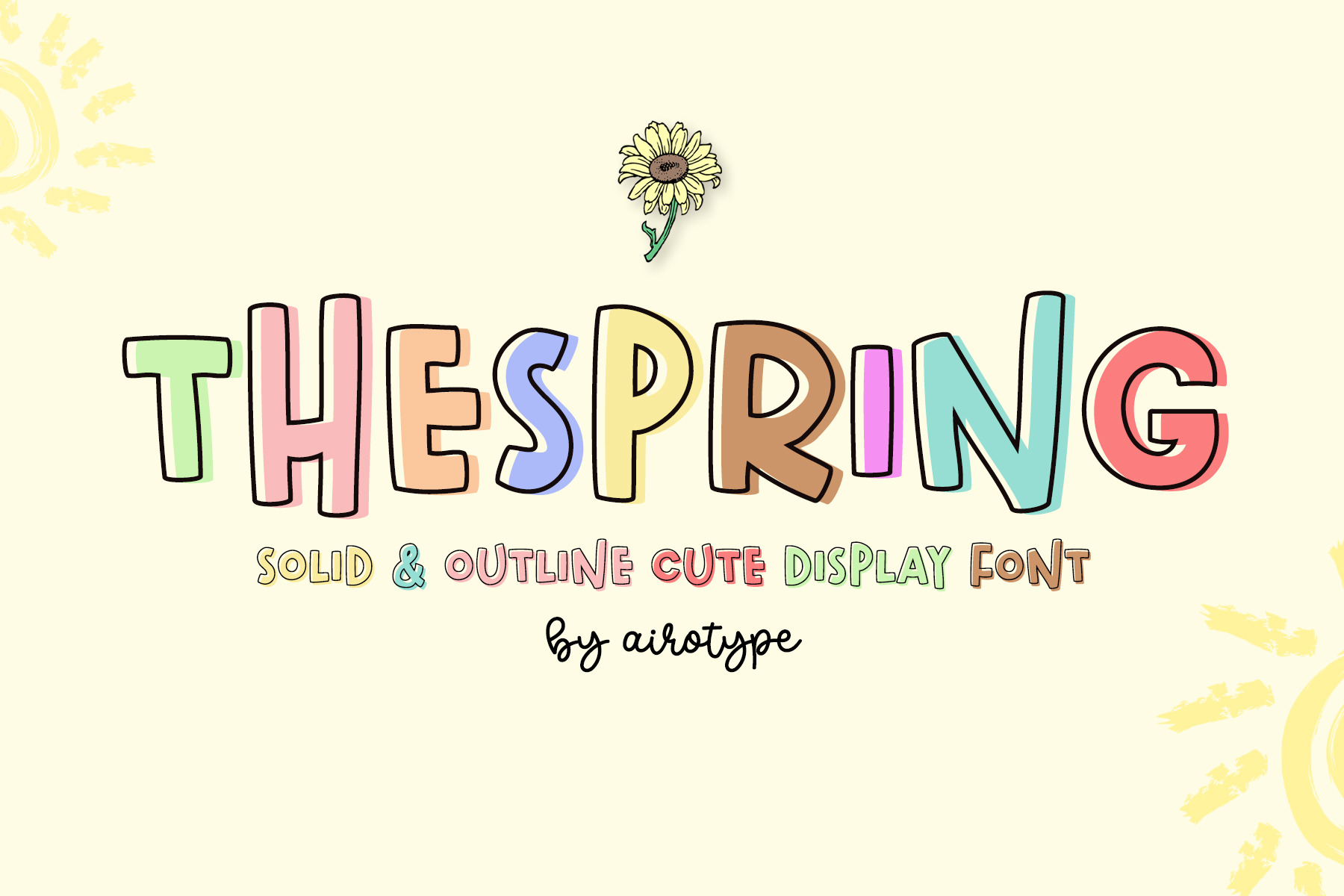
The Spring - Cute Solid Outline Font
The Spring is festive and fun display font. This font is stunning and adding cuteness into the design. It has solid and outline version.
The Spring is pretty cute font for wide ranges of design with cute-themed, such as t-shirt, crafting, sticker, mug, birthday card, planner, quotes, tumbler, sublimation, and many more.